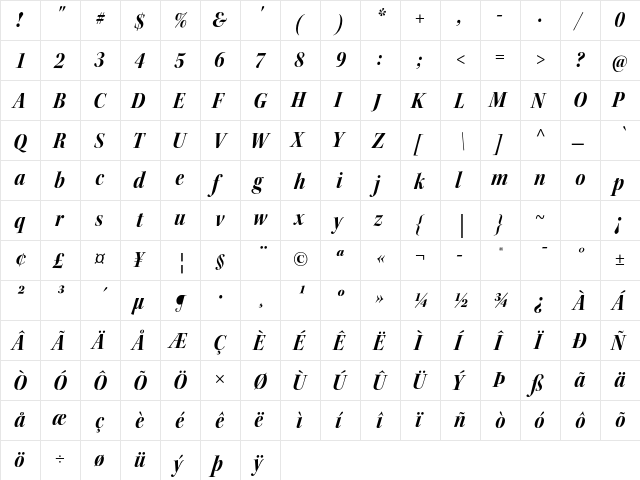
Kepler Std Bold Semicondensed Italic Display
Bold Semicondensed Italic Display ·  Robert Slimbach ·
DesignerRobert Slimbach
Design Context for Kepler Std Typeface
Kepler Std is built around its visual character rather than neutral utility — its distinctive forms are designed to make an impression at display sizes. The dynamic lean of this cut emphasises speed and emphasis in any layout. The heavy weight commands attention and anchors typographic hierarchies.
Font Pairing: Pair with a clean neutral sans-serif for body copy to let Kepler Std's character lead without overwhelming the composition.
Pro Tip: Use Kepler Std exclusively at display sizes — it was designed to be seen, not read at length. Let a neutral companion handle body copy.